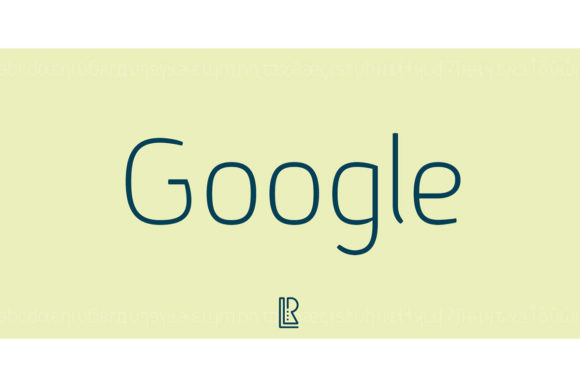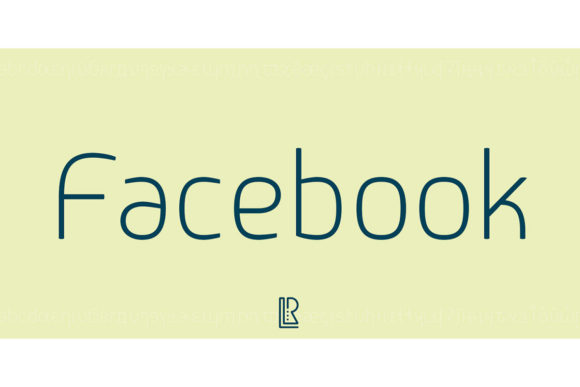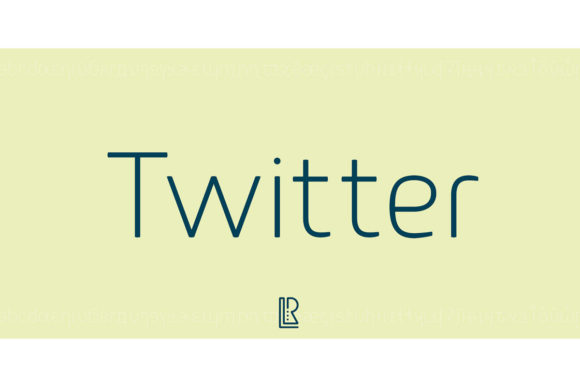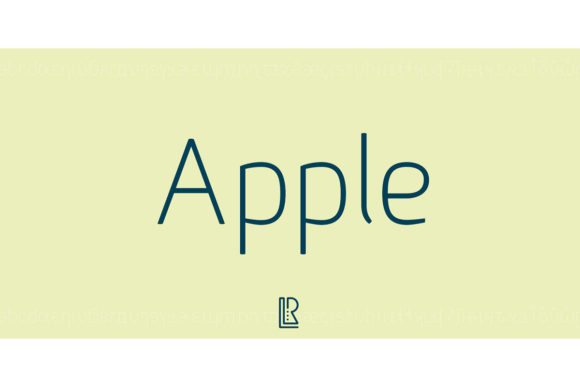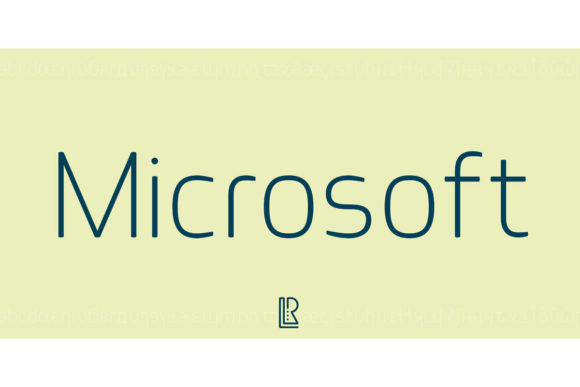
Discover the Versatility of Birica Font: Elevate Your Design with a Cool and Adaptable Sans Serif
In the world of typography, fonts play a crucial role in conveying messages, evoking emotions, and creating lasting impressions. For designers and crafters, finding the perfect font that balances aesthetics with functionality can be a daunting task. This is where Birica Font comes into play – a cool and adaptable sans serif font designed to meet the diverse needs of various design projects. In this article, we’ll delve into the features, benefits, and applications of Birica Font, exploring how it can elevate your designs and streamline your creative process.
What is Birica Font?
Birica Font is a modern sans serif font that boasts a clean, crisp, and highly legible design. Its versatility makes it an excellent choice for a wide range of applications, from traditional print materials to digital platforms. Whether you’re working on book texts, documentation, business reports, business correspondence, magazines, newspapers, posters, advertisements, multimedia, or corporate design, Birica Font is engineered to deliver exceptional results.
Key Features of Birica Font
- Adaptability: Birica Font is designed to adapt seamlessly across various mediums and sizes, ensuring that your message is conveyed clearly and effectively, regardless of the platform.
- Legibility: The sans serif design of Birica Font ensures maximum legibility, making it perfect for body text and reading-intensive materials.
- Cool and Modern Aesthetic: The font’s contemporary look and feel make it an excellent choice for designers aiming to create a fresh and modern visual identity.
- Versatility: From print to digital, Birica Font’s versatility means you can use it across a broad spectrum of design projects, reducing the need for multiple fonts.
Applications of Birica Font
Birica Font’s wide range of applications makes it a valuable asset for designers and crafters. Here are some of the key areas where Birica Font excels:
- Book Texts and Documentation: Its legibility and comfort make it ideal for lengthy reading materials.
- Business Reports and Correspondence: Convey professionalism and clarity in your business communications.
- Magazines and Newspapers: Use Birica Font to create engaging and easy-to-read content for your audience.
- Posters and Advertisements: Grab attention with the font’s modern and clean aesthetic.
- Multimedia and Corporate Design: Ensure consistency across your brand’s visual identity with Birica Font’s adaptable design.
Birica Font offers several benefits that make it a go-to choice for designers and crafters:
- Time-Saving: With Birica Font, you can work on a variety of projects without the need to switch fonts, streamlining your design process.
- Consistency: Achieve a uniform look across different materials, enhancing your brand’s professional image.
- Creativity: The font’s versatility and modern aesthetic inspire creativity, allowing you to experiment with different designs and layouts.
Birica Font stands out as a cool and adaptable sans serif font, suitable for a myriad of design applications. Its legibility, modern aesthetic, and versatility make it an indispensable tool for designers and crafters aiming to elevate their projects. Whether you’re working on traditional print materials or digital content, Birica Font offers the flexibility and quality needed to create visually appealing and effective designs. By incorporating Birica Font into your design toolkit, you’ll be well-equipped to tackle a wide range of projects with confidence and creativity.